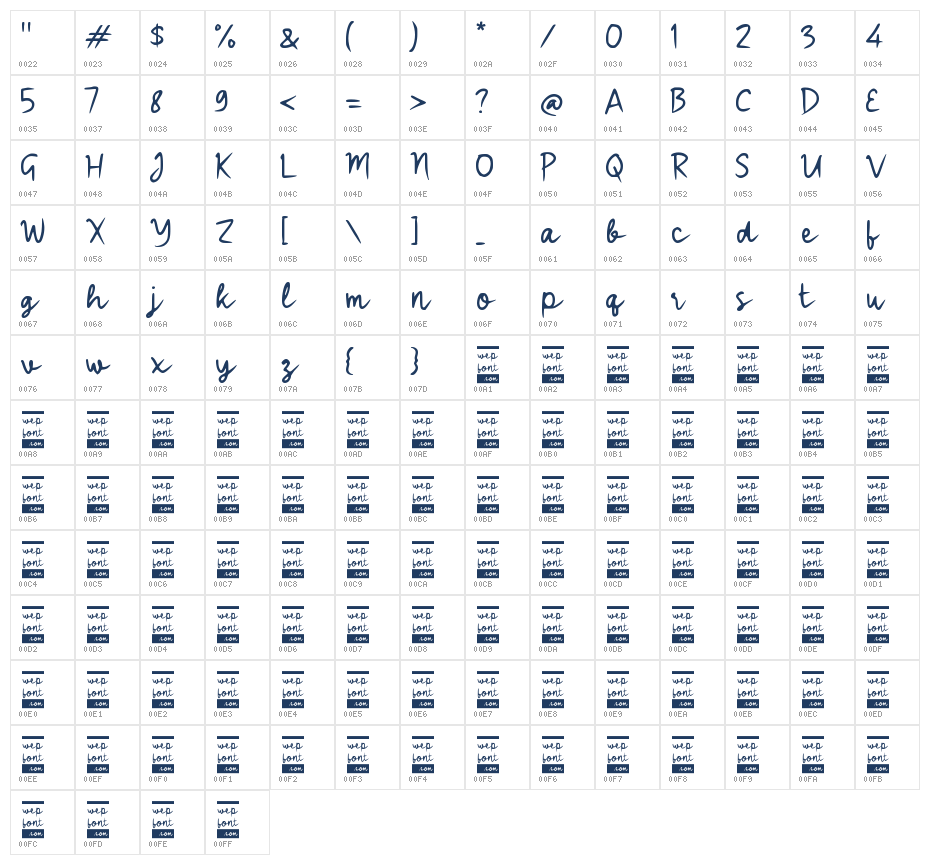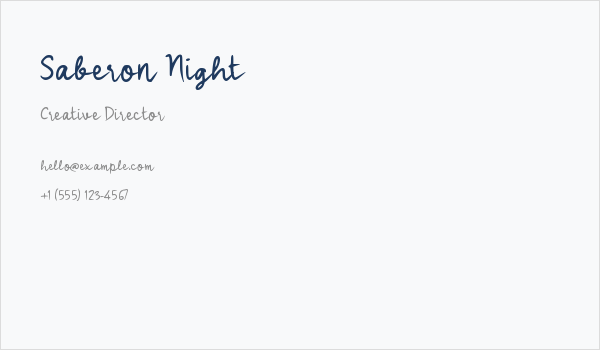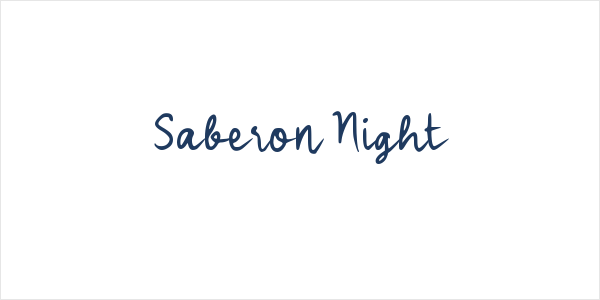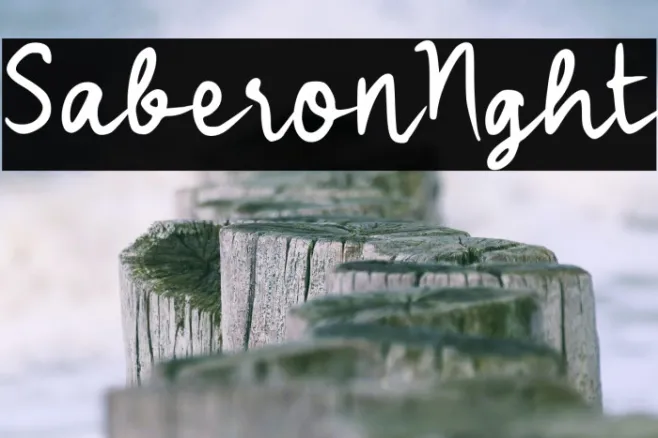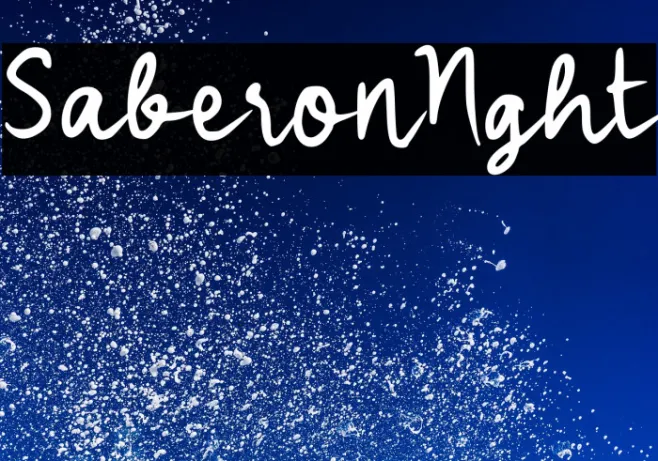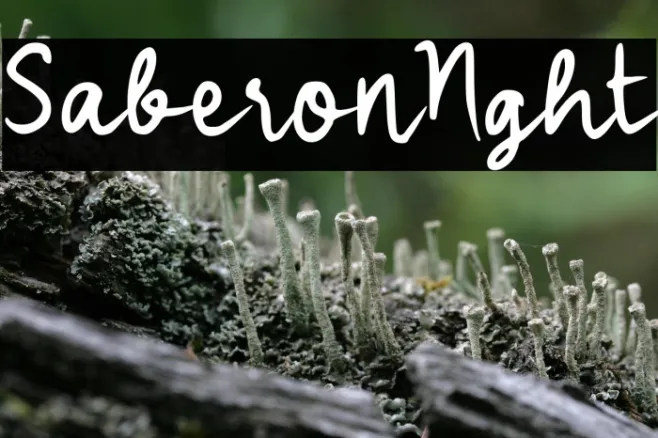
Saberon Night Font
Saberon Night Description
A casual, handwritten script font with a playful and informal style, featuring smooth curves and varying stroke widths.
| Overall Style | Casual, Friendly, Handwritten |
| Use Case | Headlines, Body text, Logos, Invitations |